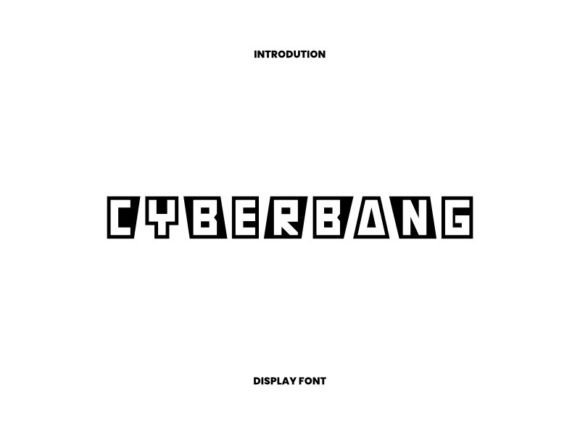
Introducing the Cyberbang Font - Your Gateway to a Technological Revolution!
Prepare to be captivated by the electrifying Cyberbang Font, a breathtaking display font that embodies the essence of the digital age. Crafted with meticulous precision, this font exudes a bold and energetic character, making it the perfect choice for any design project that seeks to make a lasting impact.
Step into the realm of cybernetics, where the Cyberbang Font reigns supreme. Its sharp angles and dynamic curves evoke a sense of fluidity and movement, mirroring the fast-paced nature of technology. Each letterform is a work of art, engineered to command attention and leave an unforgettable impression.
Whether you're designing a cutting-edge tech logo, creating eye-catching social media graphics, or crafting a futuristic website, the Cyberbang Font is your ultimate companion. Its versatility knows no bounds, empowering you to express your creativity in countless ways.
Embrace the future and let the Cyberbang Font ignite your imagination. Its bold presence will elevate your designs to new heights, capturing the essence of innovation and technological prowess. Immerse yourself in the digital realm and unlock the limitless possibilities that await you with the Cyberbang Font.